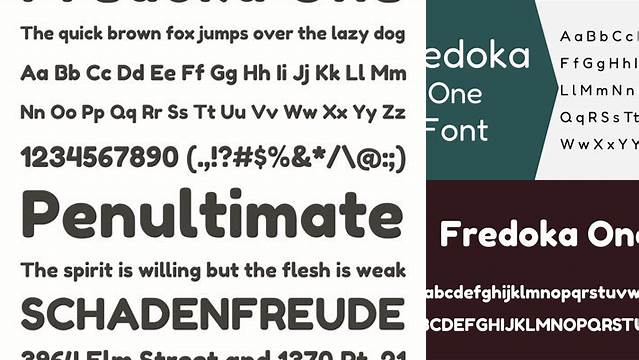
Fredoka One: Playful Font Guide & Best Uses
Are you looking for a font that radiates fun, friendliness, and approachability? Look no further than Fredoka One! This delightful sans-serif typeface, available on Google Fonts, is a true gem in the world of typography. Its rounded letterforms, gentle curves, and confident strokes create a welcoming and cheerful vibe, making it a perfect choice for a wide range of design projects. Fredoka One is more than just a font; it's a statement. It says, "We're here to have a good time!" It's the kind of font that makes you smile, the kind that adds a touch of playfulness to any design, and the kind that sticks in your memory. In this comprehensive guide, we'll delve deep into the world of Fredoka One, exploring its origins, characteristics, ideal use cases, and how you can harness its power to elevate your creative projects. So, buckle up, guys, and let's dive into the wonderful world of Fredoka One!
The Origins and Inspiration Behind Fredoka One
Fredoka One was designed by the talented Milena Brandão, a Brazilian graphic designer with a passion for creating fonts that are both functional and expressive. Her inspiration for Fredoka One stemmed from a desire to create a typeface that captured the essence of childlike joy and playful energy. She envisioned a font that would be at home in children's books, posters, and websites, but also versatile enough to be used in other contexts where a touch of lightheartedness was desired. The font's name itself hints at its intended personality: "Fredoka" evokes a sense of friendliness and approachability, while "One" suggests its bold and singular nature. Brandão's design process involved a careful balancing act between creating a font that was both visually appealing and highly legible. She experimented with different letterforms, stroke weights, and spacing until she achieved the perfect harmony. The result is a typeface that is both eye-catching and easy to read, making it a popular choice for designers around the world. Fredoka One's creation story is a testament to the power of design to evoke emotions and communicate messages. It's a font that was born out of a desire to bring joy to the world, and it continues to do so with every project it graces.
Key Characteristics and Features of Fredoka One
So, what exactly makes Fredoka One so special? Let's break down its key characteristics and features:
- Rounded Letterforms: This is perhaps the most defining characteristic of Fredoka One. The rounded shapes of the letters create a soft and friendly feel, making it instantly approachable. Think of it as the typographic equivalent of a warm hug!
- Bold Strokes: Fredoka One boasts a strong and confident stroke weight, giving it excellent visibility and impact. This makes it ideal for headlines, titles, and other display purposes where you want to grab attention.
- Gentle Curves: The subtle curves in the letterforms add a touch of elegance and sophistication to the font. They prevent it from looking too rigid or blocky, maintaining its playful personality.
- Slightly Condensed: Fredoka One is slightly condensed, meaning the letters are a bit narrower than average. This allows you to fit more text into a given space without sacrificing legibility. It's a great feature for designs where space is at a premium.
- High Legibility: Despite its playful design, Fredoka One is surprisingly legible, even at smaller sizes. This makes it a versatile choice for both display and body text.
- Versatile Character Set: Fredoka One includes a comprehensive character set, including uppercase and lowercase letters, numbers, punctuation marks, and various symbols. This gives you the flexibility to use it in a wide range of languages and applications.
These characteristics combine to create a typeface that is both unique and versatile. It's a font that can be used in a variety of contexts, from children's books to websites to branding materials. Fredoka One is a true workhorse in the world of typography, and its popularity is a testament to its quality and appeal.
Ideal Use Cases and Applications for Fredoka One
Now that we know what makes Fredoka One tick, let's explore some of the ideal use cases and applications for this delightful font:
- Children's Books and Educational Materials: This is where Fredoka One truly shines. Its playful and friendly nature makes it a perfect choice for engaging young readers and creating a positive learning environment. Imagine a children's book with bold, colorful illustrations and Fredoka One text – it's a recipe for success!
- Websites and Apps for Kids: If you're designing a website or app targeted at children, Fredoka One is an excellent option. It will help you create a visually appealing and user-friendly experience that kids will love.
- Logos and Branding for Child-Friendly Businesses: Do you run a daycare, a toy store, or any other business that caters to children? Fredoka One can help you create a logo and branding materials that reflect your business's playful and welcoming personality.
- Posters and Flyers for Events and Activities: Need to promote a school play, a summer camp, or a community event? Fredoka One will ensure your posters and flyers stand out and grab attention. Its bold and cheerful vibe is perfect for attracting a crowd.
- Social Media Graphics: Fredoka One is a fantastic choice for social media graphics. Its eye-catching design will help your posts get noticed in a crowded feed.
- Greeting Cards and Invitations: Want to add a touch of fun to your greeting cards and invitations? Fredoka One is the perfect way to do it. It's ideal for birthday cards, party invitations, and other celebratory occasions.
- Headlines and Titles: Fredoka One's bold strokes and excellent legibility make it a great choice for headlines and titles in a variety of contexts.
Fredoka One: A Font That Spreads Joy
In conclusion, guys, Fredoka One is more than just a font; it's a personality. It's a playful, friendly, and approachable typeface that can instantly inject a dose of fun into any design project. Its rounded letterforms, bold strokes, and excellent legibility make it a versatile choice for a wide range of applications, from children's books to websites to branding materials. Whether you're designing for kids or simply want to add a touch of lightheartedness to your work, Fredoka One is a font that you can always rely on. So, go ahead, give it a try, and let Fredoka One help you spread joy through your designs! You won't be disappointed.